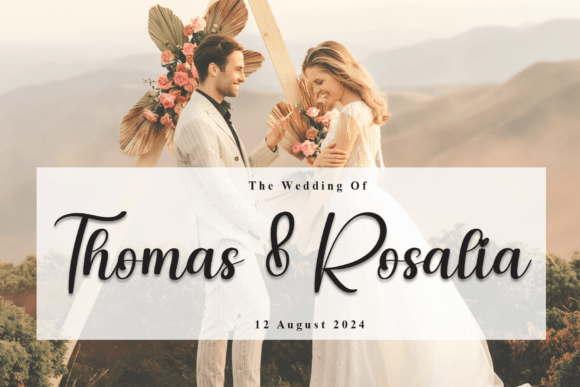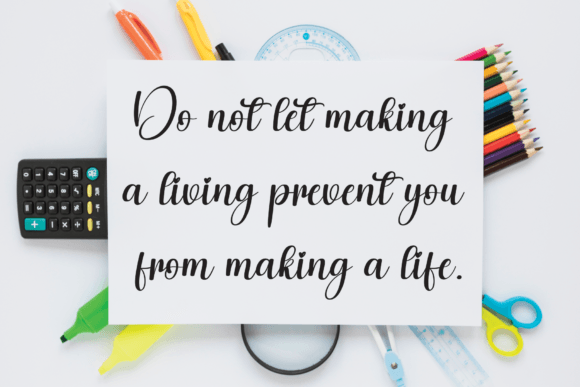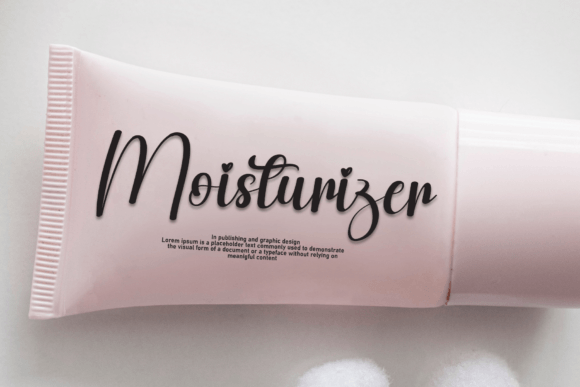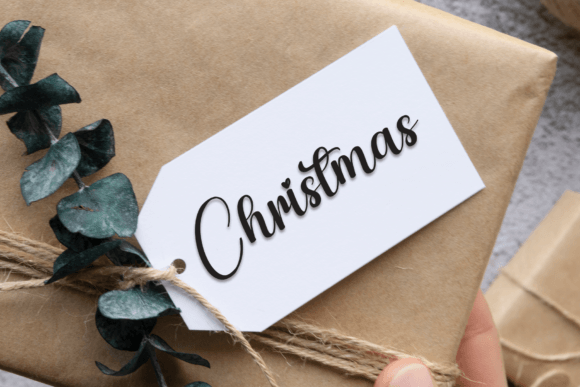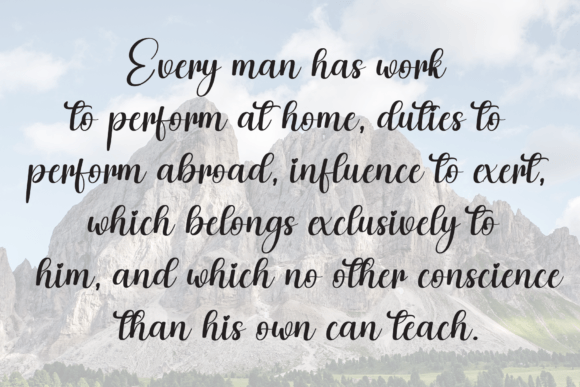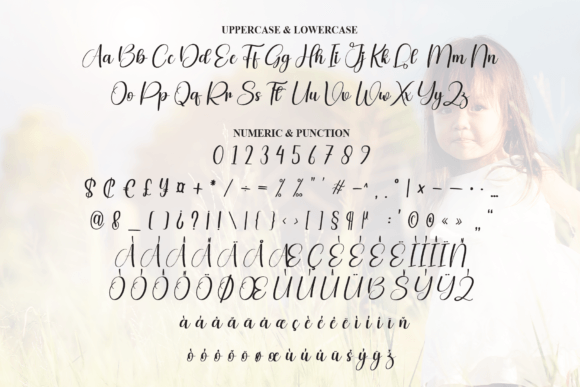
Introduction to Kind Summer Font
Do you remember the moment when you finally nailed that perfect design for your friend’s wedding invitation? The one that made everyone go ‘wow’? For me, it was a Kind Summer Font design that added a touch of elegance to a summer-themed party invitation. The font’s flowing curves and delicate strokes brought the whole design together, making it truly special.
As designers, we’re always on the lookout for that perfect design resource to elevate our creative projects. And that’s exactly what the Kind Summer Font offers – a high-quality, stylish handwritten script font that exudes sophistication and charm. Whether you’re working on a logo, branding, or a design project with a transparent background, this font is sure to add a personal touch and make your work stand out.
Key Features of Kind Summer Font
- Unique and elegant design perfect for a creative project or personal use.
- Perfect for designers looking for a high-quality, unique font to add a touch of personality to their designs.
- Can be easily used for various design purposes, including logos, branding, and print materials.
Honest Review: Kind Summer Font
I recently stumbled upon the Kind Summer Font, and I must say it’s a beautiful addition to any design project. The font features a minimalist aesthetic with a touch of elegance, making it perfect for creative projects that require a clean and sophisticated look.
- High quality and crisp typography
- Perfect for designing summer-themed projects, events, or products
- Can be used as a title font or for body text, depending on the design requirements
One of the standout features of the Kind Summer Font is its transparent background, which allows for seamless integration with any background image or color scheme. This level of flexibility is ideal for designers who need to create visually appealing and unique designs.
- May not be suitable for projects that require a bold or playful font style
- Some users may find the font too minimalist or simple
Overall, I’m impressed with the Kind Summer Font, and I think it’s an excellent addition to any designer’s toolkit. Its versatility and high-quality typography make it an ideal choice for a wide range of creative projects.
Kind Summer Font
Getting the Most Out of Kind Summer Font
To get the most out of the Kind Summer Font, use it with a transparent background to create visually appealing designs. This font is ideal for high-quality projects that require a creative touch.
The Kind Summer Font is suitable for various use cases, including:
- Print and digital advertising
Alternatives to Kind Summer Font
Pacifico is a high-quality, elegant font perfect for creative projects that require a touch of sophistication. It features a transparent background and a beautiful, cursive design. Use it for wedding invitations, quotes, or any design where you want to convey a sense of luxury.
Pacifico is similar to Kind Summer Font in its elegant and sophisticated design, but it has a more refined and polished look. It’s ideal for projects where you need a high-end feel.
Great Vibes is a fun and playful font that’s perfect for creative projects that need a bit of whimsy. It features a transparent background and a beautiful, handwritten design. Use it for social media graphics, blog posts, or any design where you want to convey a sense of fun and playfulness.
Great Vibes is similar to Kind Summer Font in its fun and playful design, but it has a more casual and laid-back feel. It’s ideal for projects where you need a bit of humor and personality.
Alex Brush is a high-quality, elegant font perfect for creative projects that require a touch of sophistication. It features a transparent background and a beautiful, handwritten design. Use it for wedding invitations, quotes, or any design where you want to convey a sense of luxury.
What makes the Kind Summer Font a high-quality design resource?
The Kind Summer Font is a high-quality design resource due to its crisp, clear, and highly legible typography. Its clean design and well-balanced proportions make it an excellent choice for a wide range of creative projects, from branding and marketing materials to editorial and publishing designs.